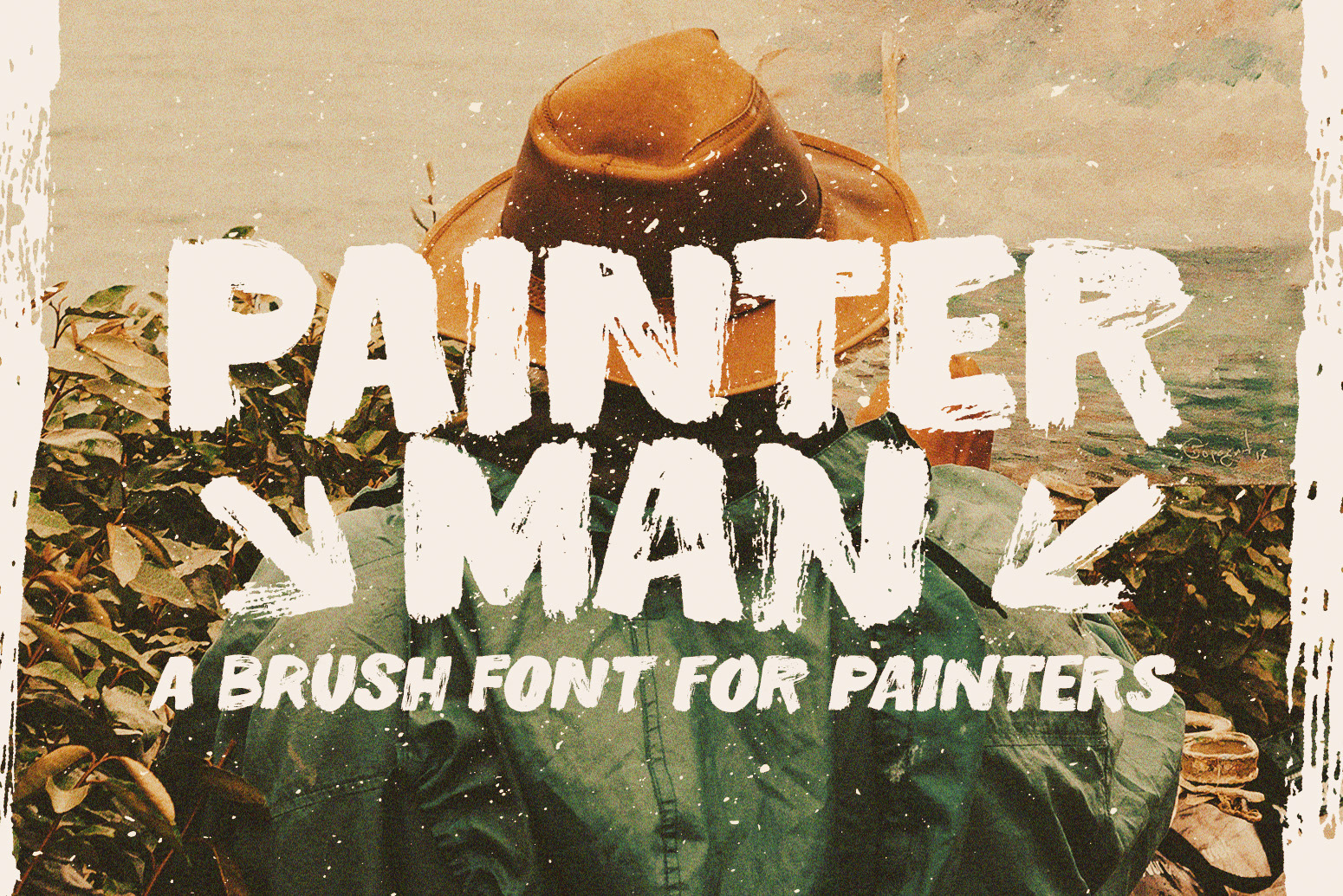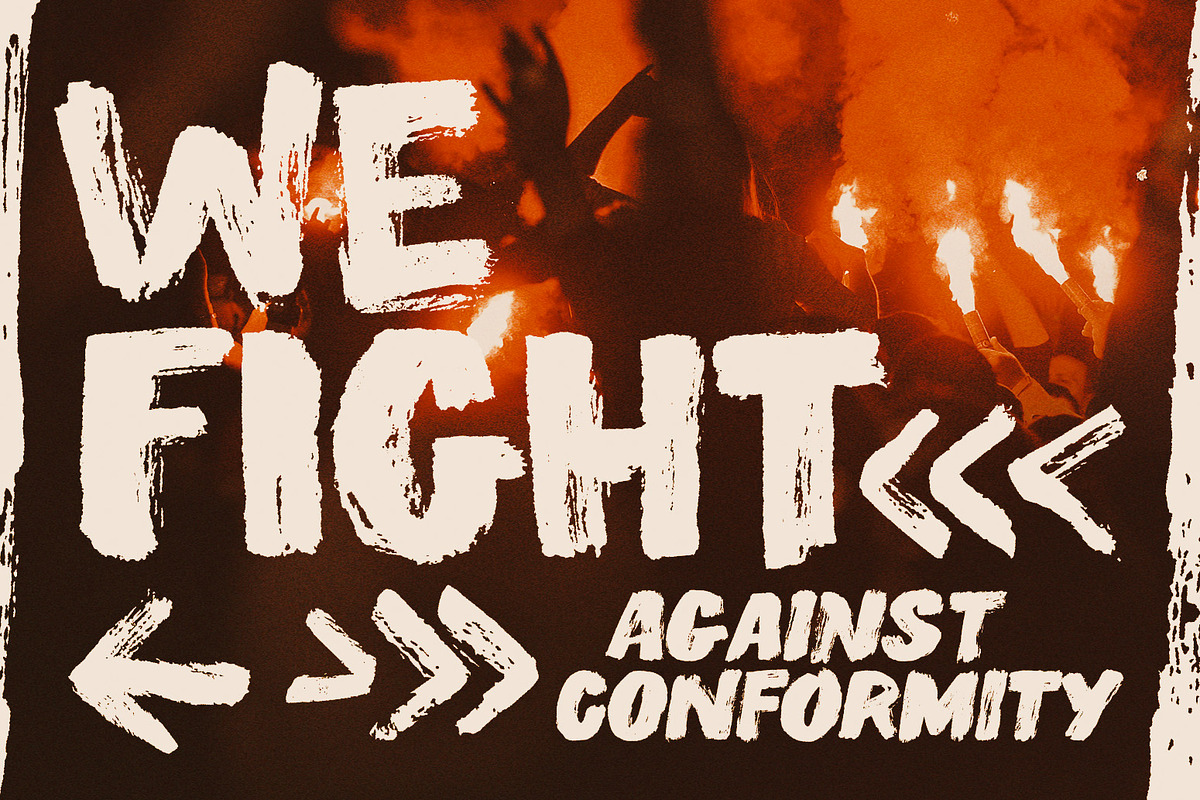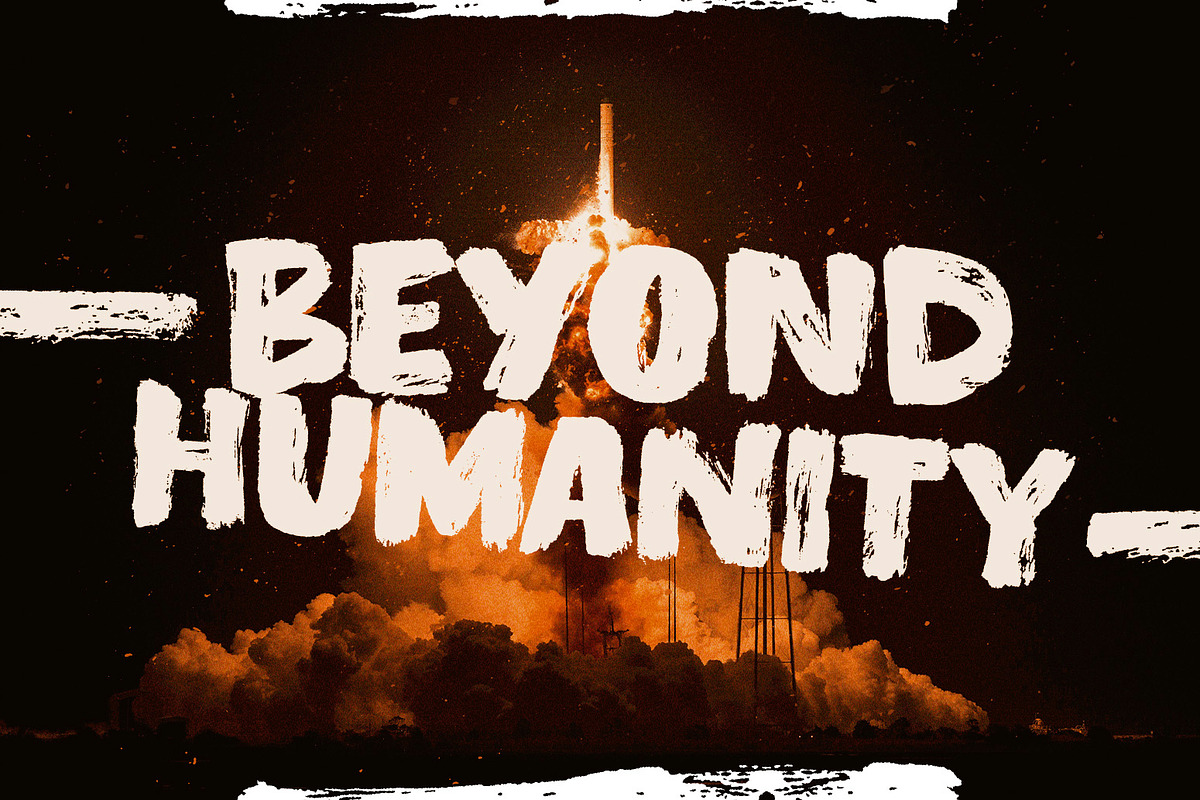
Painterman Brush Font
Painterman is a bold handmade display typeface specially crafted to give a loud voice to your creations. It has an unique design carrying 3 glyphs to each letter, which gives your projects a nice handmade feel. This demands activation of the opentype feature on your software, otherwise the font will only repeat letters. Either way, it looks cool!